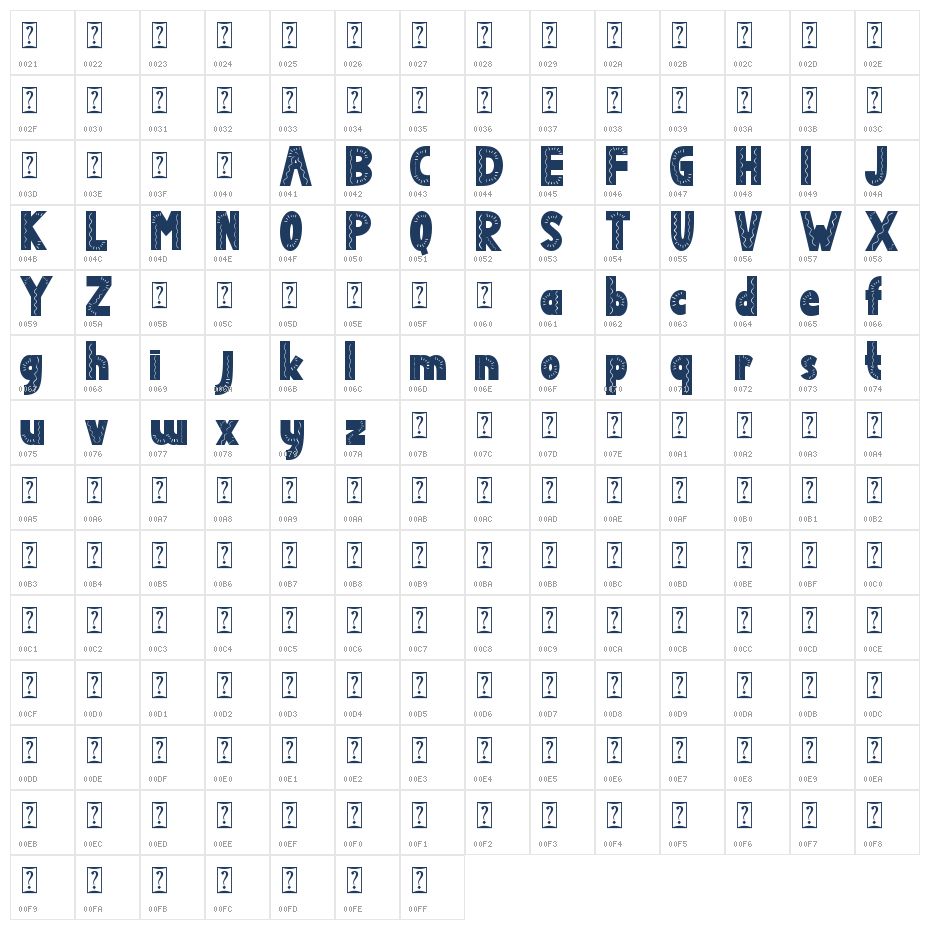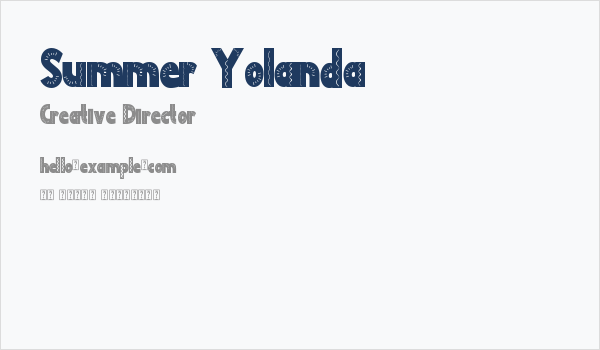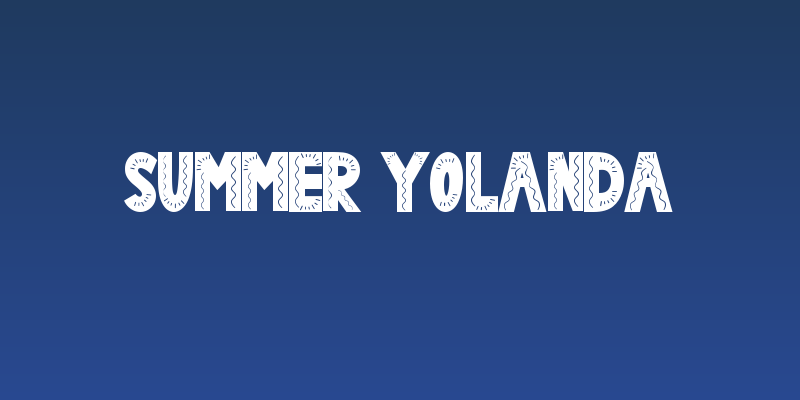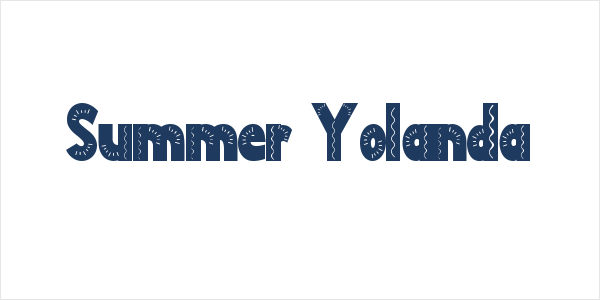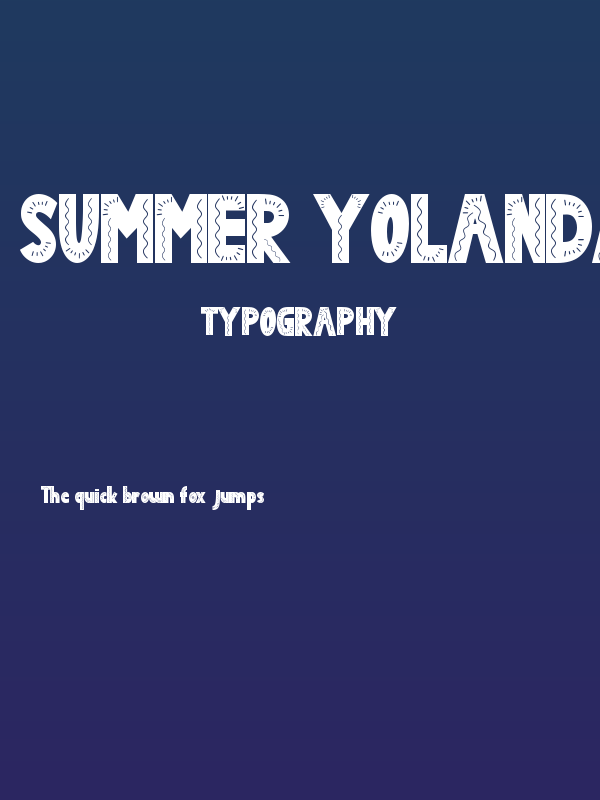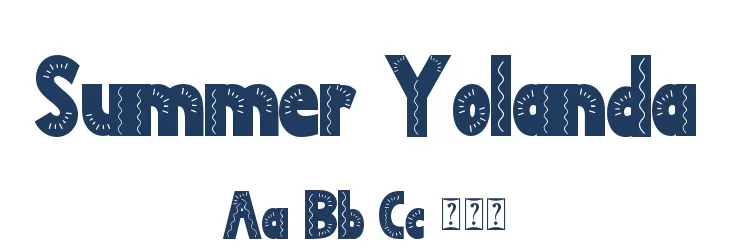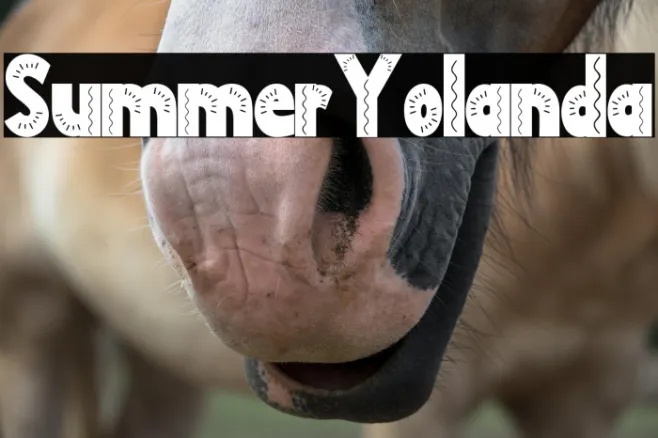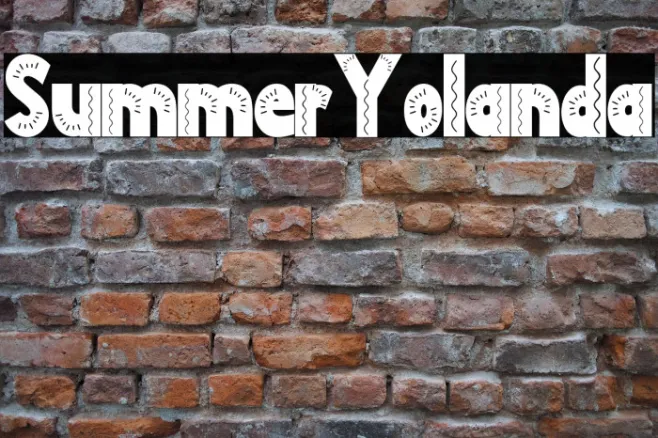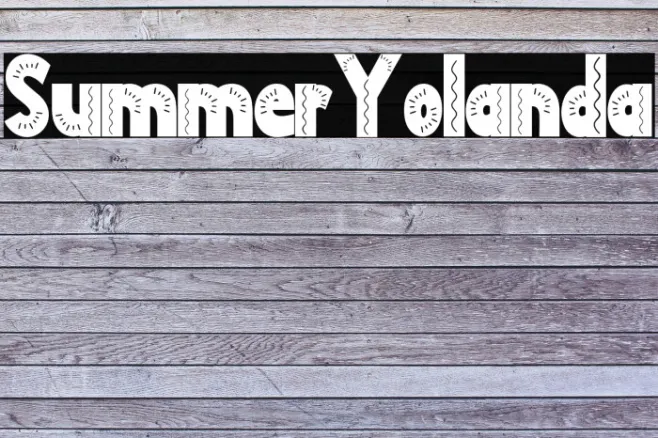
Summer Yolanda Font
Summer Yolanda Description
Bold, decorative, playful font with zigzag and dotted accents on each character, featuring a blocky and stylized appearance.
Summer Yolanda
| Overall Style | Playful, Retro, Decorative |
| Use Case | Headlines, Titles, Logos |